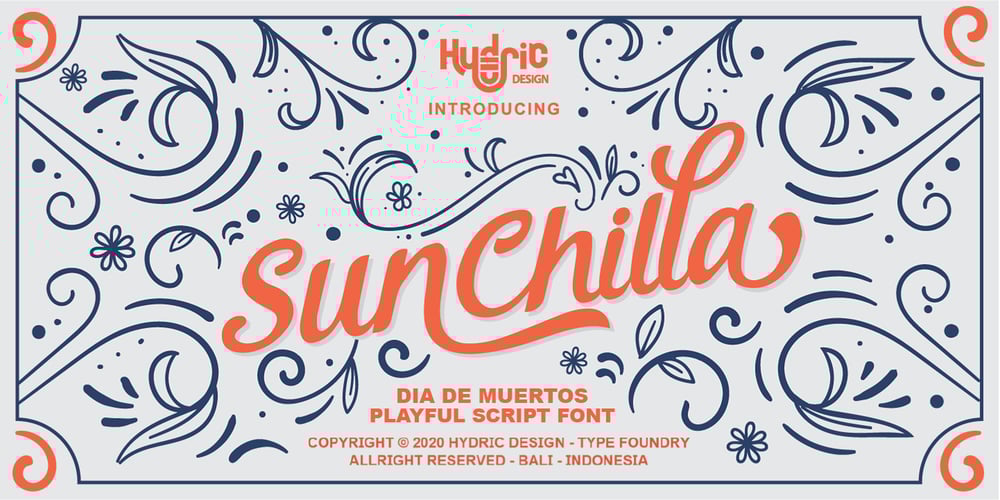
Sunchilla
Sunchilla font
Sunchilla Font Family was designed by Hery Setyadarmawan and published by Hydric Design. Sunchilla contains 4 styles and family package options. Hi there! Hydric Design proudly present the Sunchilla Script font,inspired by The Day of the Dead is a Mexican holiday celebrated throughout Mexico,in particular the Central and South regions, and by people of Mexican heritage elsewhere called “Dia De Muertos” design with a touch of Sweet, Unique and Fun style. Sunnchilla Script font is made in a handwriting style so it is suitable for use in product design and display titles. Sunchilla Script font are included in the display font category so can be used for any designs that have a cheerful, elegant and sweet impression. and also will be very suitable when used on titles, logos, product posters, websites, menu books, books, and many designs that can be explored using document fonts. it will looks very beautiful because it will easy to remember and very easy to use.